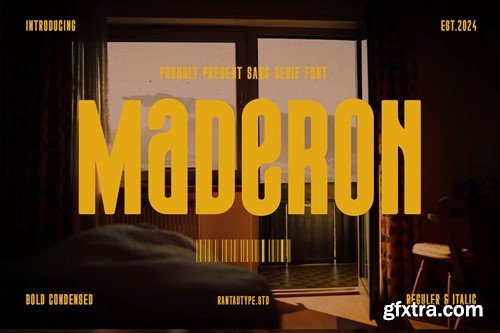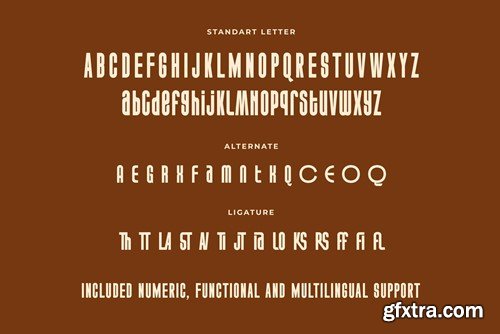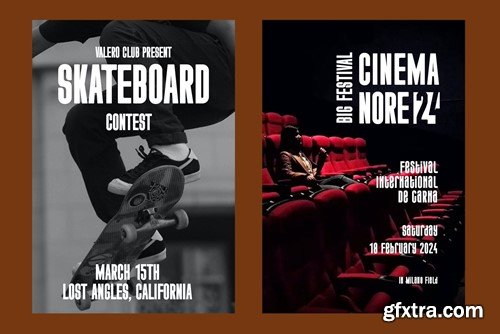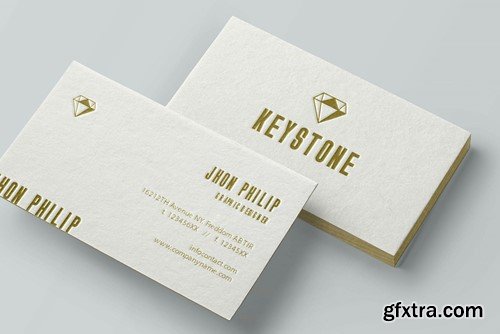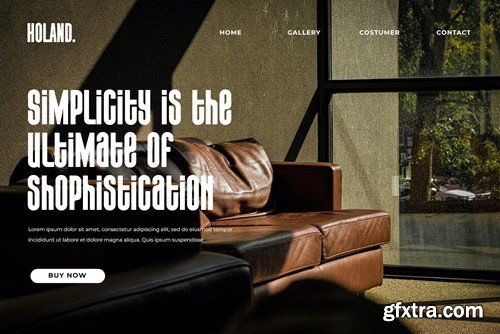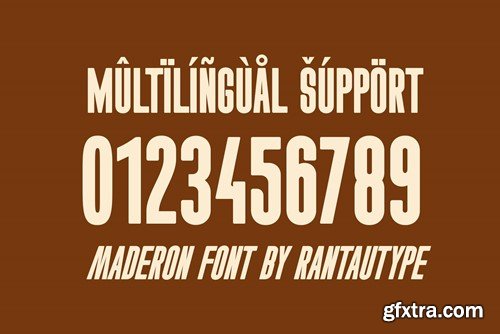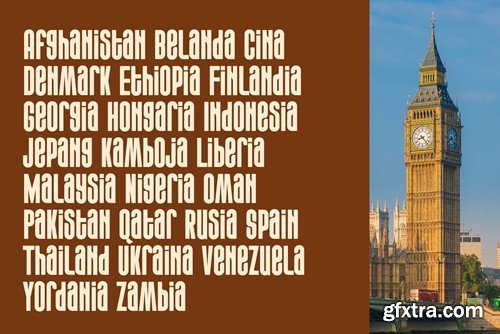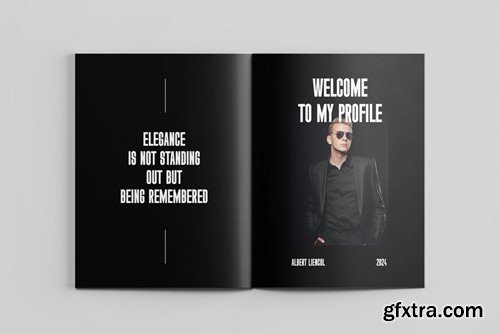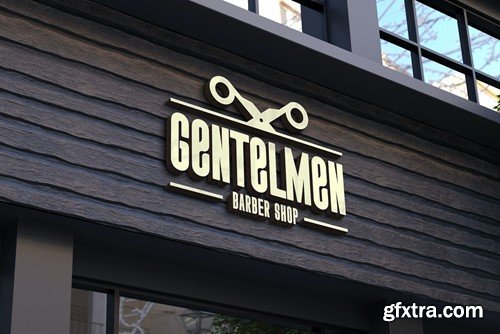
Maderon Bold Condensed Font BHVM3BR
Hi Ladies and Gentleman ! Proudly present bold condensed Font call Maderon , by rantautype. Maderon is a bold condensed rounded display font with retro vibe. Gotens is a sophisticated shape with distinctive shapes into a display fonts way to make it legible for contemporary use. Unique in this font is the lowercase is made the same height as the uppercase. so you can mix and max to create beautiful designs. Maderon come with alternate, ligature and mulilingual support. Gotens is a beautiful choice for any creative endeavor, retro or vintage design, lifestyle design such as logos, title, cover, branding, display, business card, magazine, poster, film/movie and more. Now you using Maderon to elevate you design or branding. Features: File include: Langguange support: Afrikaans, Albanian, Asu, Basque, Bemba, Bena, Breton, Catalan, Chiga, Cornish, Danish, Dutch, English, Estonian, Faroese, Filipino, Finnish, French, Friulian, Galician, German, Gusii, Icelandic, Indonesian, Irish, Italian, Kabuverdianu, Kalenjin, Kinyarwanda, Luo, Luxembourgish, Luyia, Machame, Makhuwa-, Meetto, Makonde, Malagasy, Manx, Morisyen, Northv Ndebele, Norwegian, Bokmål, Norwegian, , Nynorsk, Nyankole, Oromo, Portuguese, Quechua, Romansh, Rombo, Rundi, Rwa, Samburu, Sango, Sangu, Scottish, Gaelic, Sena, Shambala, Shona, Soga, Somali, Spanish, Swahili, Swedish, Swiss, German, Taita, Teso, Uzbek (Latin), Volapük, Vunjo, Zulu Thank you for visit our store and Hope you enjoy our font!!